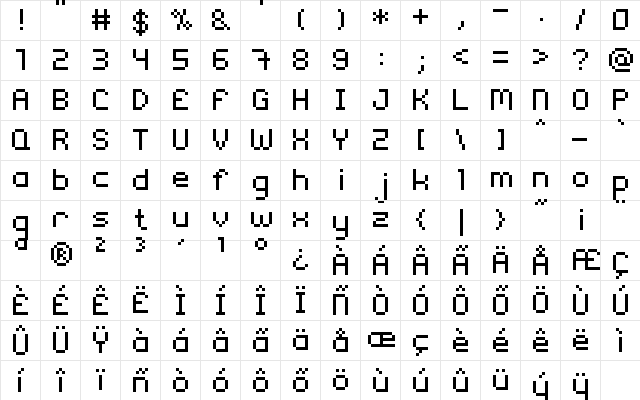
Rix Rix Free Font
Rix Rix
Style: Rix
Foundry: Enrico Batista da Luz
Designer: Enrico Batista da Luz
Design Context for Rix
Rix is a composed and adaptable typeface that performs quietly and consistently across a wide range of design contexts.